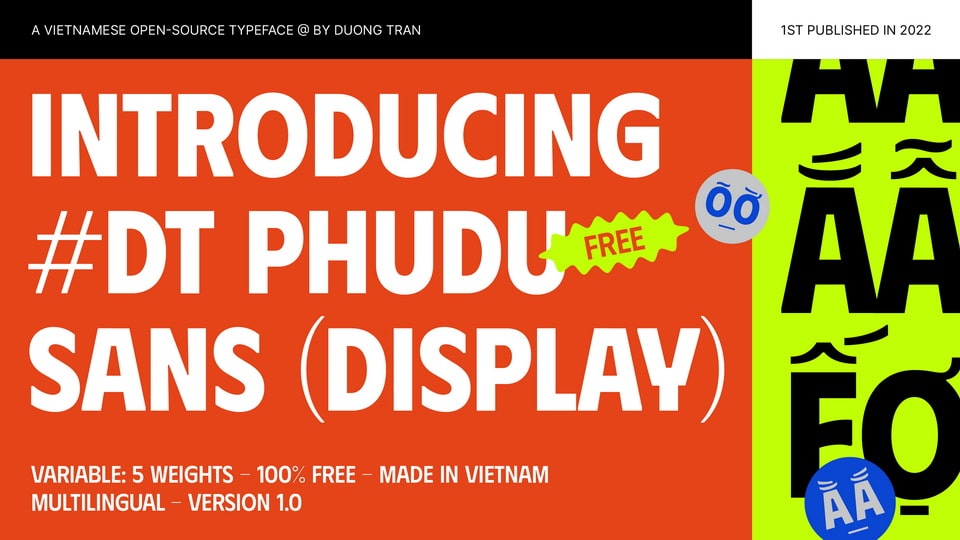
Download DT Phudu font, a display sans serif typeface inspired by Vietnamese hand-lettering billboards in the old days. DT Phudu font focuses on readability on large scales and is easy to assess.